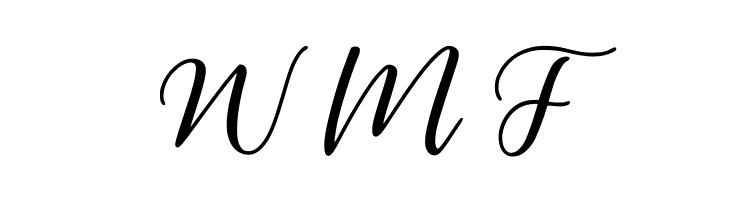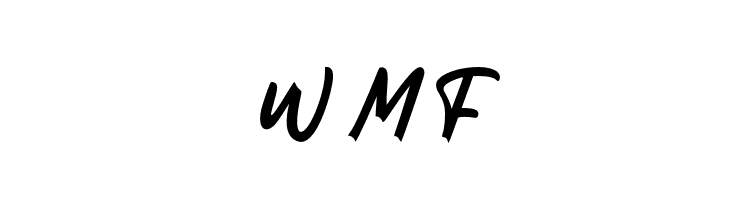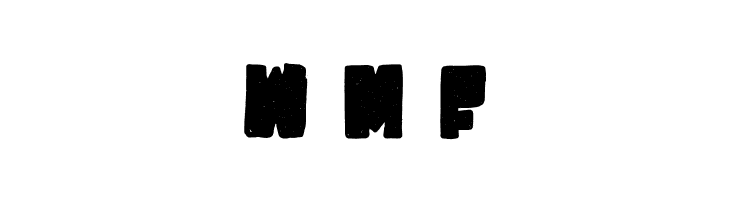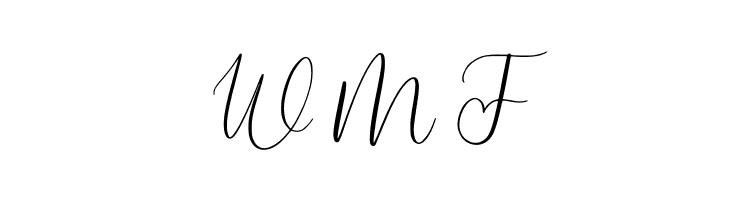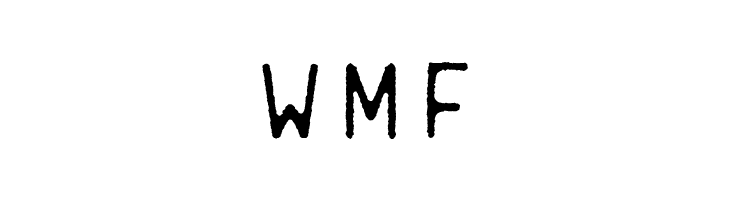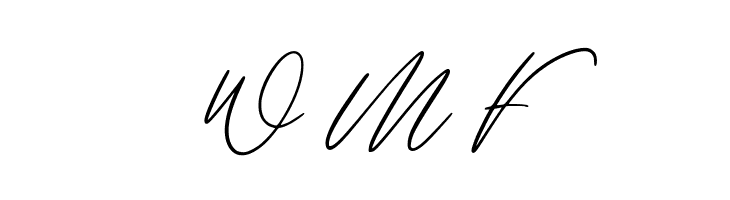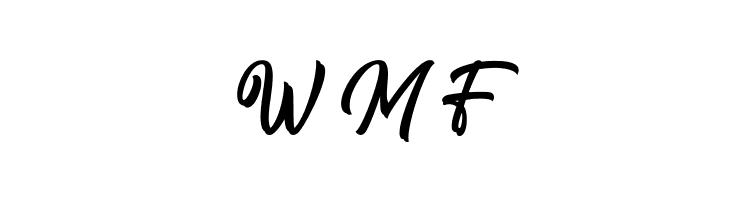
A flowing, elegant cursive script font with smooth connections and stylish flair.
A bold, dynamic script font with sweeping curves and high contrast.
A bold, textured font with a vintage, distressed look.
An elegant and flowing script font with ornate uppercase and readable lowercase letters.
A bold, playful handwritten font with a casual and friendly style.
A playful, hand-drawn style font with a casual and organic feel.
A playful and elegant handwritten script font with flowing curves.
A fluid, cursive script font with elegant, connected strokes.
A stylish and elegant script font with fluid, connected letterforms.
A fluid and elegant script font with cursive letterforms.